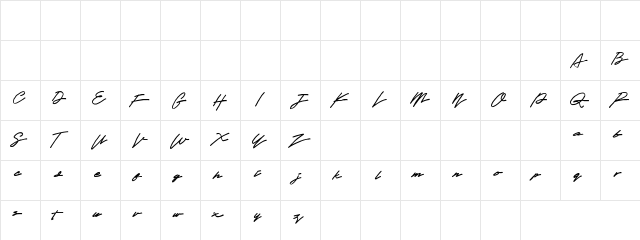
Obey Signature Regular
Design Context for Obey Signature Typeface
Obey Signature is a composed and adaptable typeface that performs quietly and consistently across a wide range of design contexts.